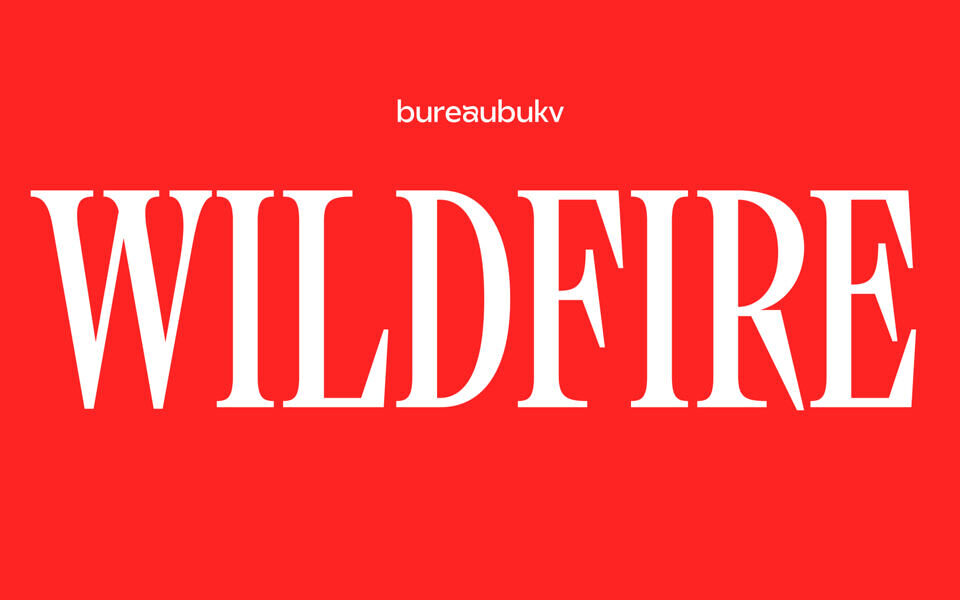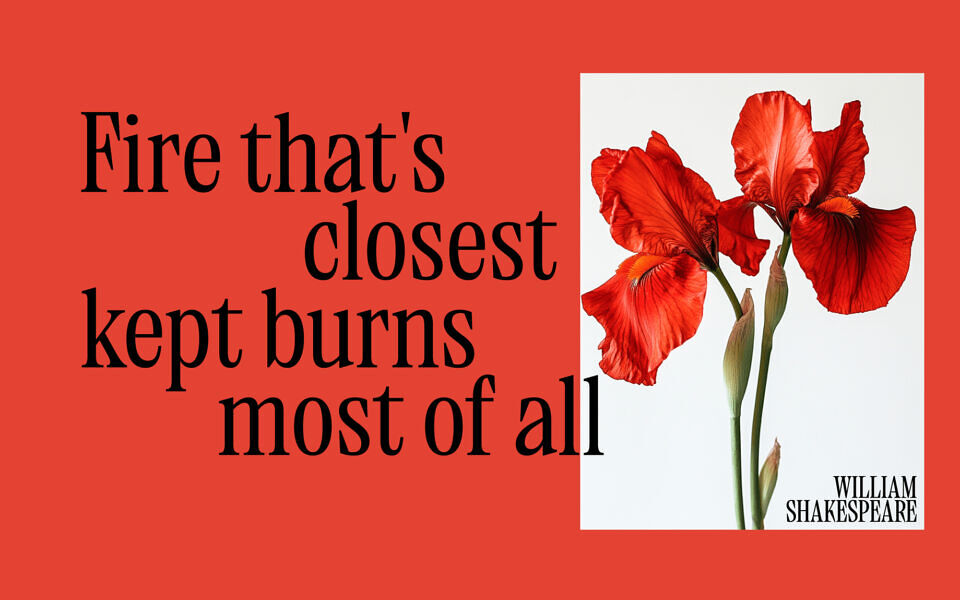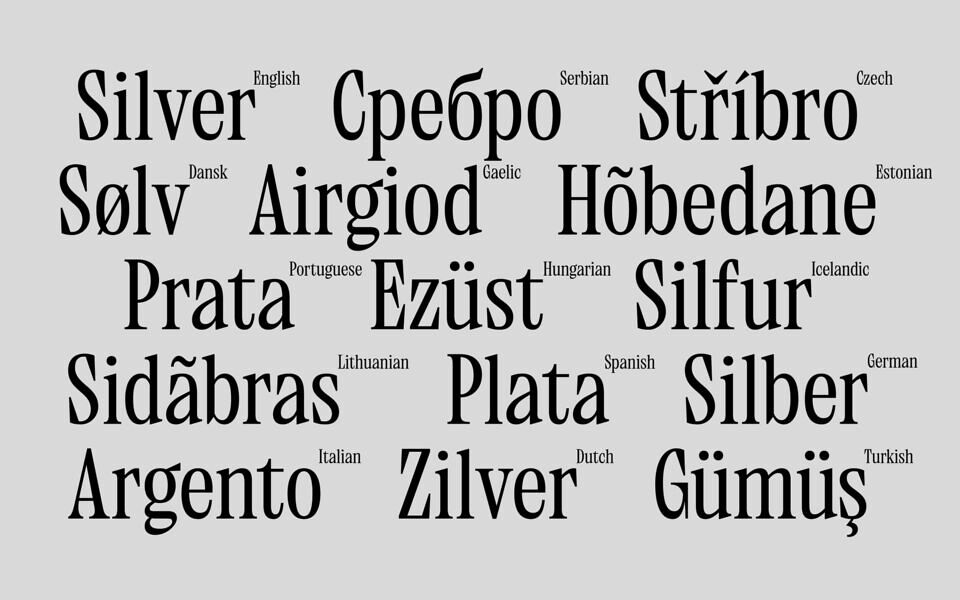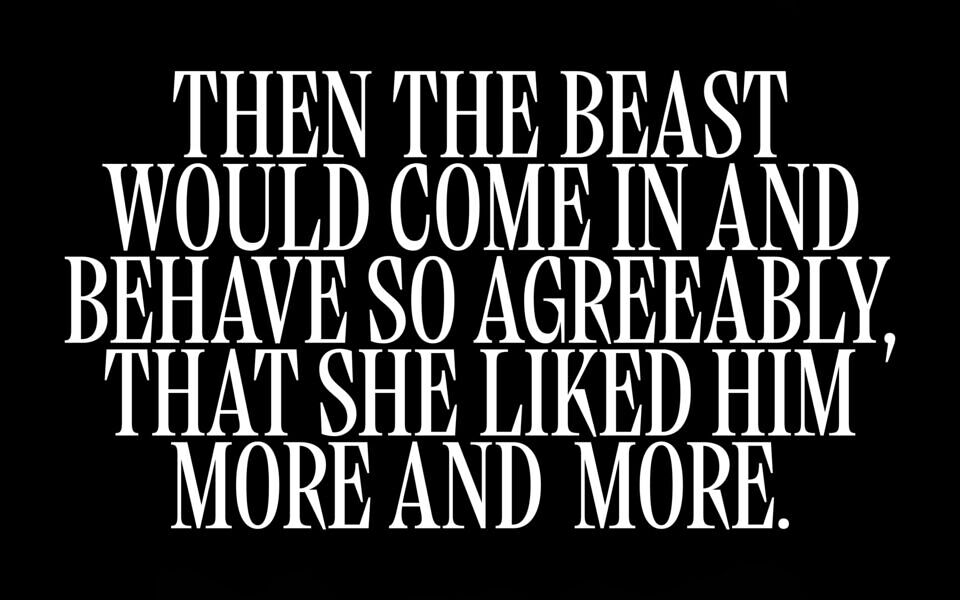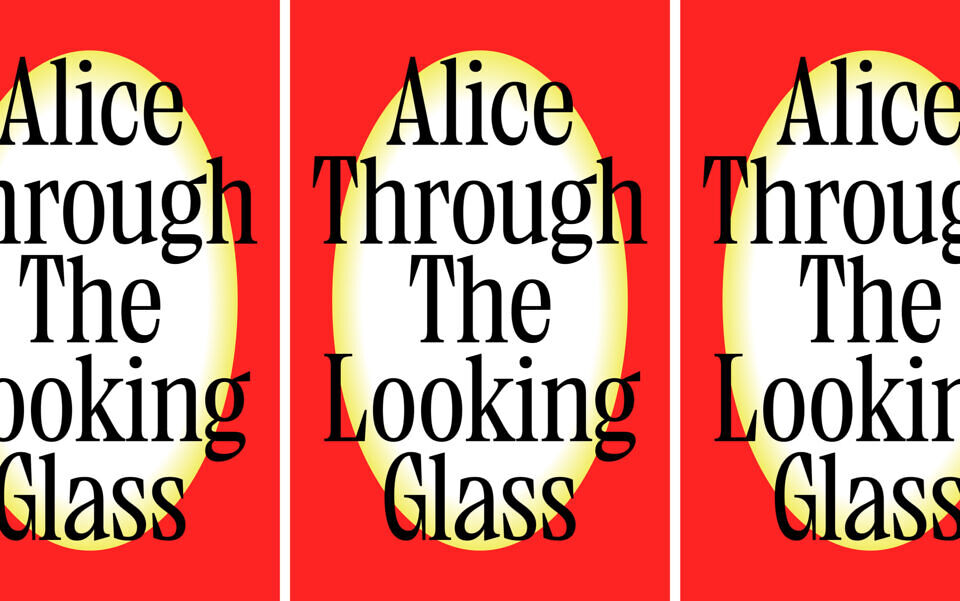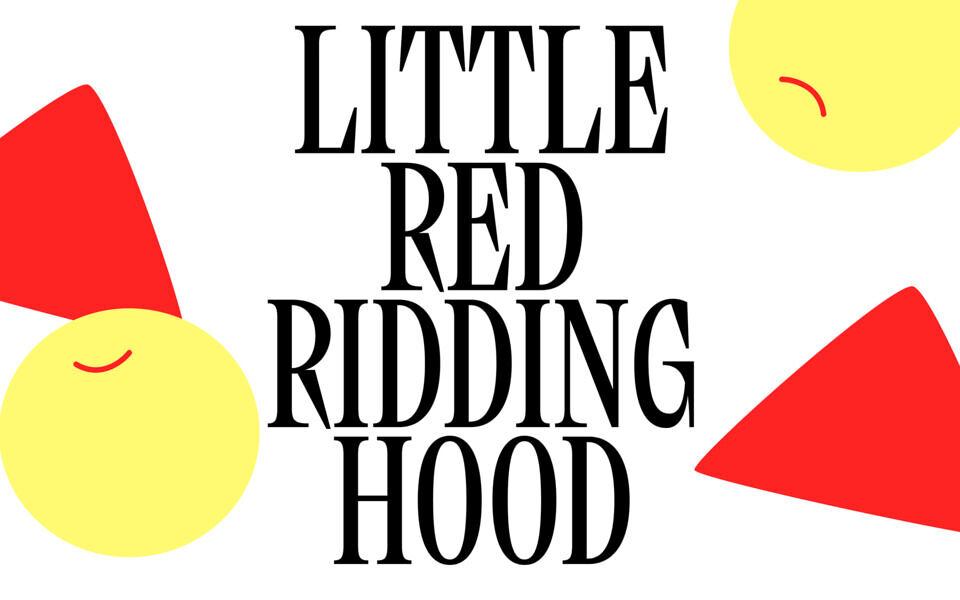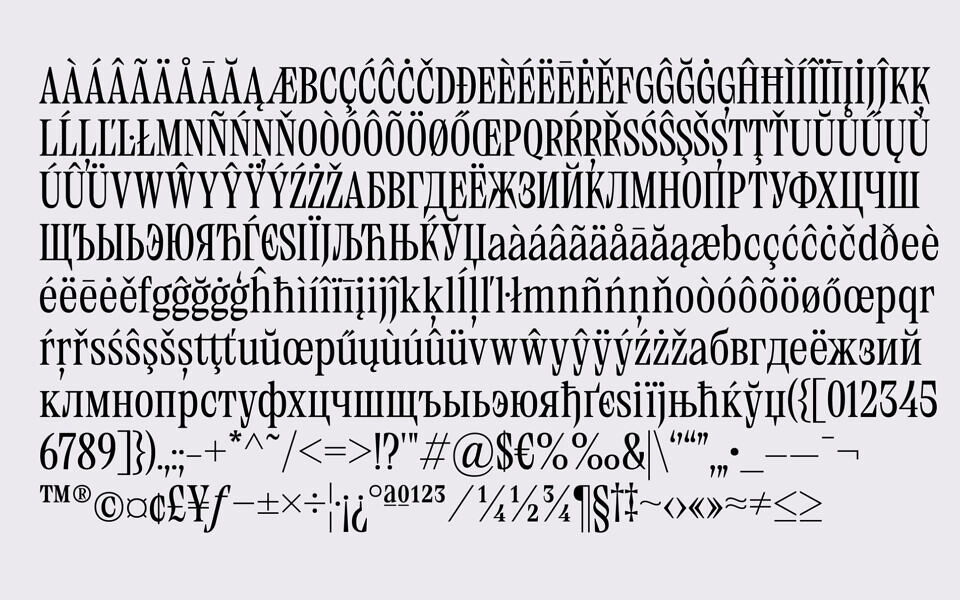
BBKV Wildfire Font
BBKV Wildfire is bold, dynamic serif typeface for captivating captions. This typeface is crafted to make a bold statement with sharp, cutting serifs that give it a sense of power and confidence. The capital letters take center stage, standing tall and commanding attention with their strong, angular forms. Their aggressive design exudes a sense of authority and energy, making them perfect for bold headlines, captions, and any context where you want to catch the viewer’s eye.
The lowercase letters, while subtler, serve a crucial supporting role. Their more delicate, complements the aggressive nature of the uppercase characters, creating a balanced contrast that helps in maintaining readability and visual harmony, especially in shorter texts. The overall effect is one of modern sophistication, with the sharp serifs adding a touch of edge to any composition.
Ideal for use in fashion, editorial design, advertisements, or any application where you want to convey strength, daring, and style, this typeface brings together the boldness of capital letters with the understated elegance of lowercase letters, creating a dynamic interplay between the two.